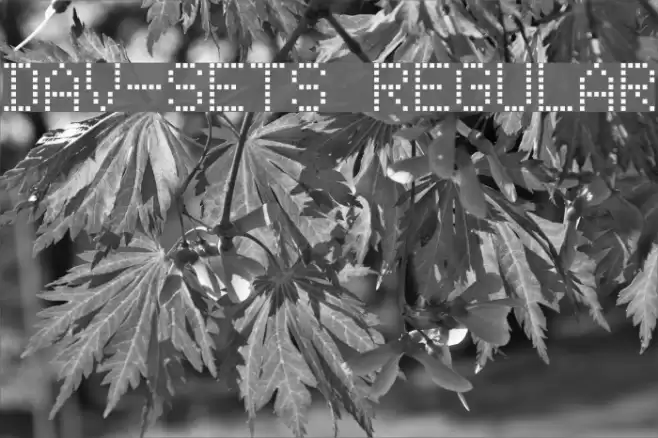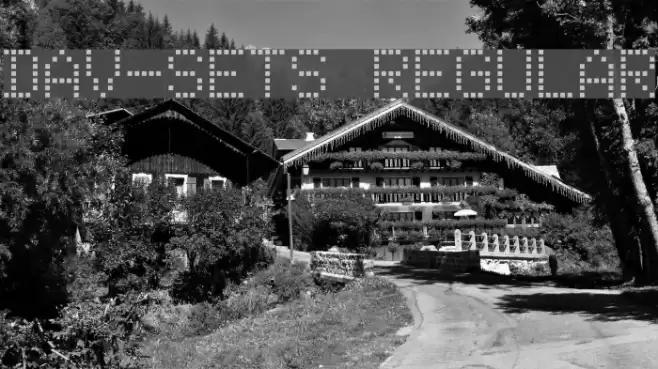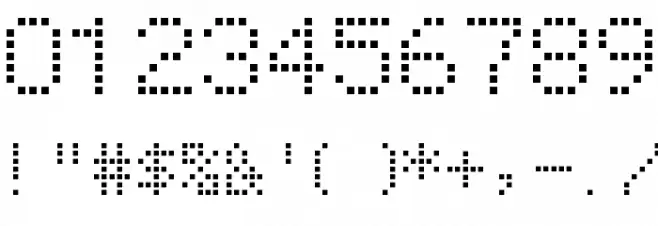
DAV-Sets Regular Font
DAV-Sets Regular Description
This font features a unique dot matrix style, where each character is composed of a grid of small, evenly spaced dots. The design is reminiscent of early digital displays and printers, offering a retro, technological aesthetic. The characters are clearly defined, with consistent spacing and alignment, making them easily legible despite the unconventional style. The uppercase and lowercase letters maintain uniformity in their dot patterns, while numbers and special characters follow the same grid-based design, ensuring a cohesive look across all glyphs. This font's distinct appearance makes it ideal for projects that aim to evoke a sense of nostalgia or digital innovation.
A dot matrix style font with a retro digital aesthetic from Uncategorized fonts.
- Proposed Projects: Ideal for digital-themed designs, retro posters, tech branding, and any project seeking a vintage digital look.
- Overall Style: Retro, Digital
- Use Case: Logos, Posters, Digital Art